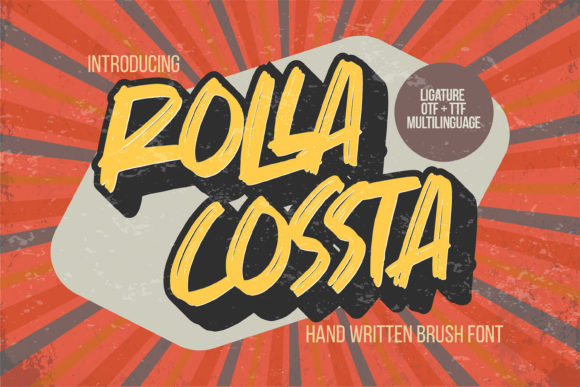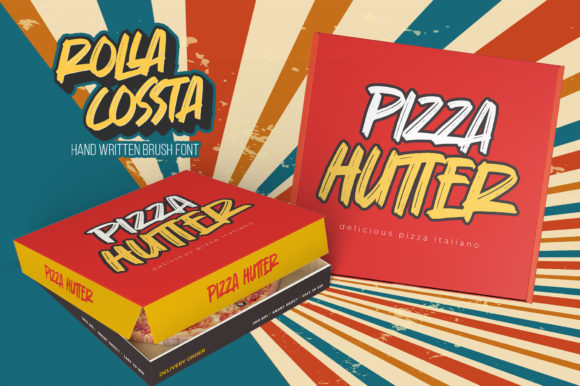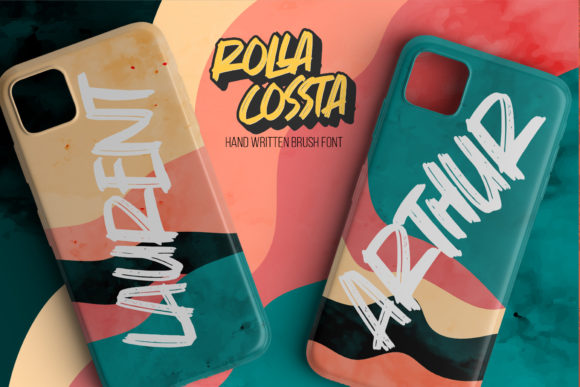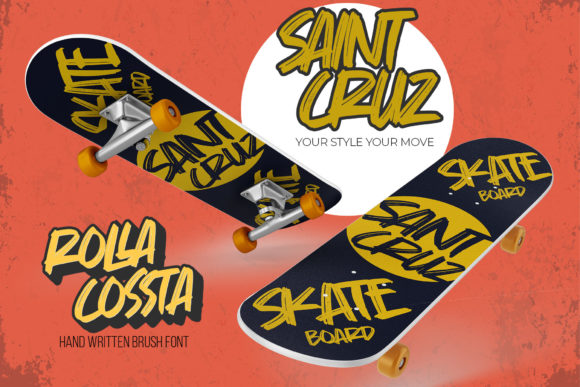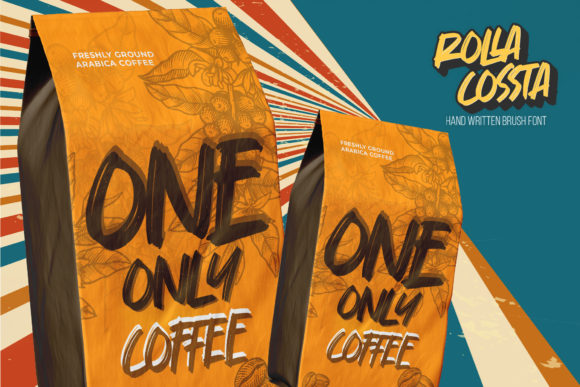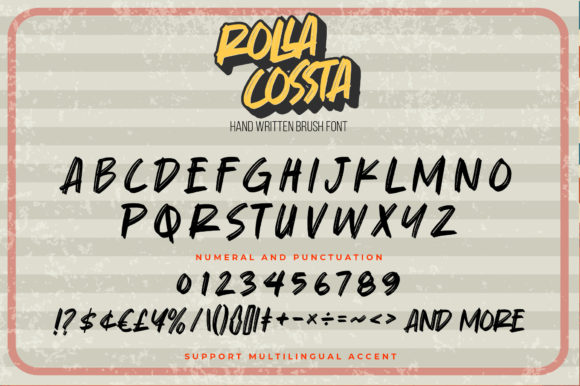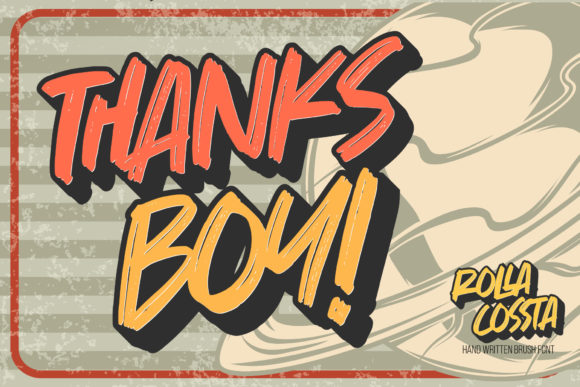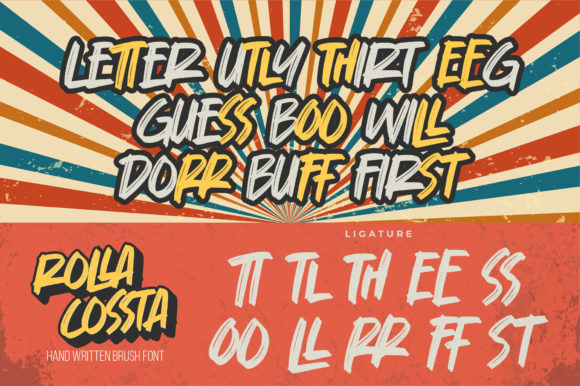
Rolla Cossta Font
About Rolla Cossta Font
Rolla Cossta is a handwritten brush font with a graffiti style and a fun theme. This font is suitable for graffiti, posters, flyers, children’s books, cartoons, or comics.